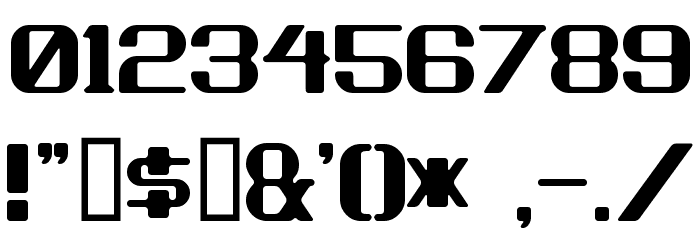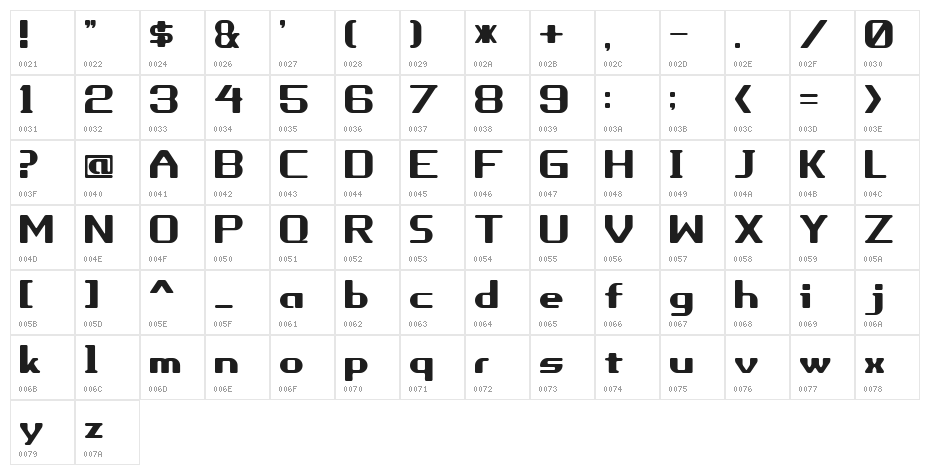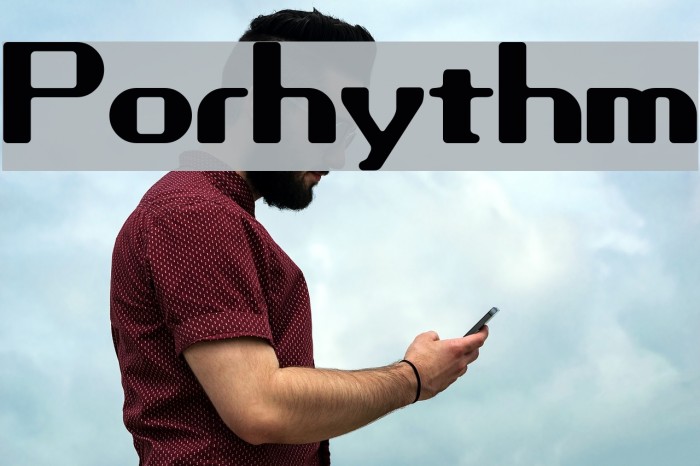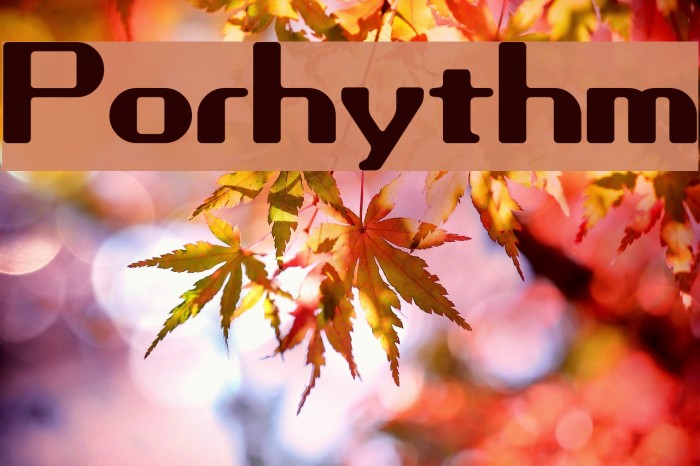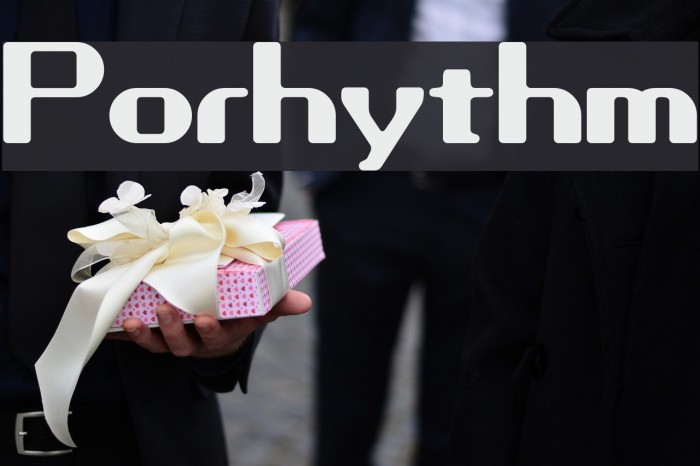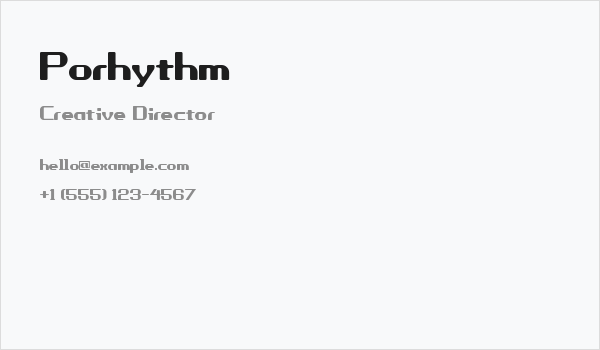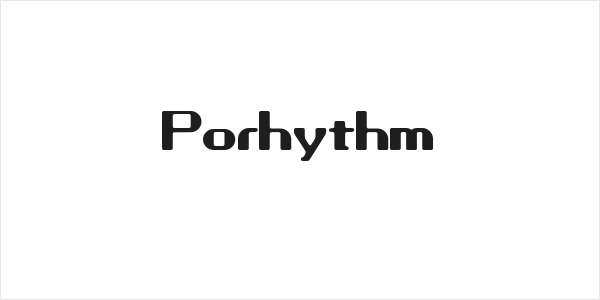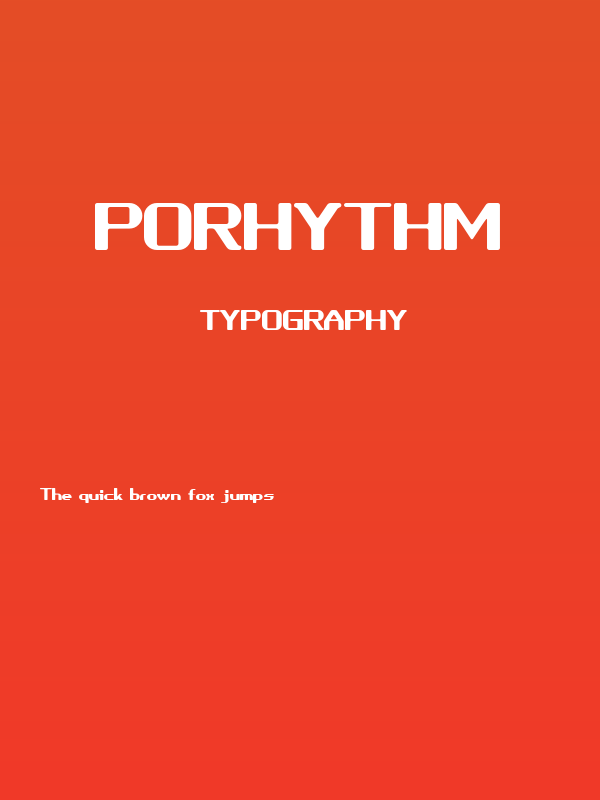
Porhythm Font
Porhythm Description
This font features a bold and geometric design with a futuristic aesthetic. The uppercase letters are characterized by their angular shapes and consistent stroke widths, creating a strong and impactful appearance. The lowercase letters maintain a similar geometric style, with rounded edges that add a touch of softness to the overall design. The numerals are distinct and easily readable, following the same bold and structured form. Special characters are uniquely styled, complementing the font's modern and dynamic look. This font is ideal for projects that require a contemporary and eye-catching typeface.
| Proposed Projects | Ideal for branding, headlines, posters, and digital media that require a modern and bold typeface. |